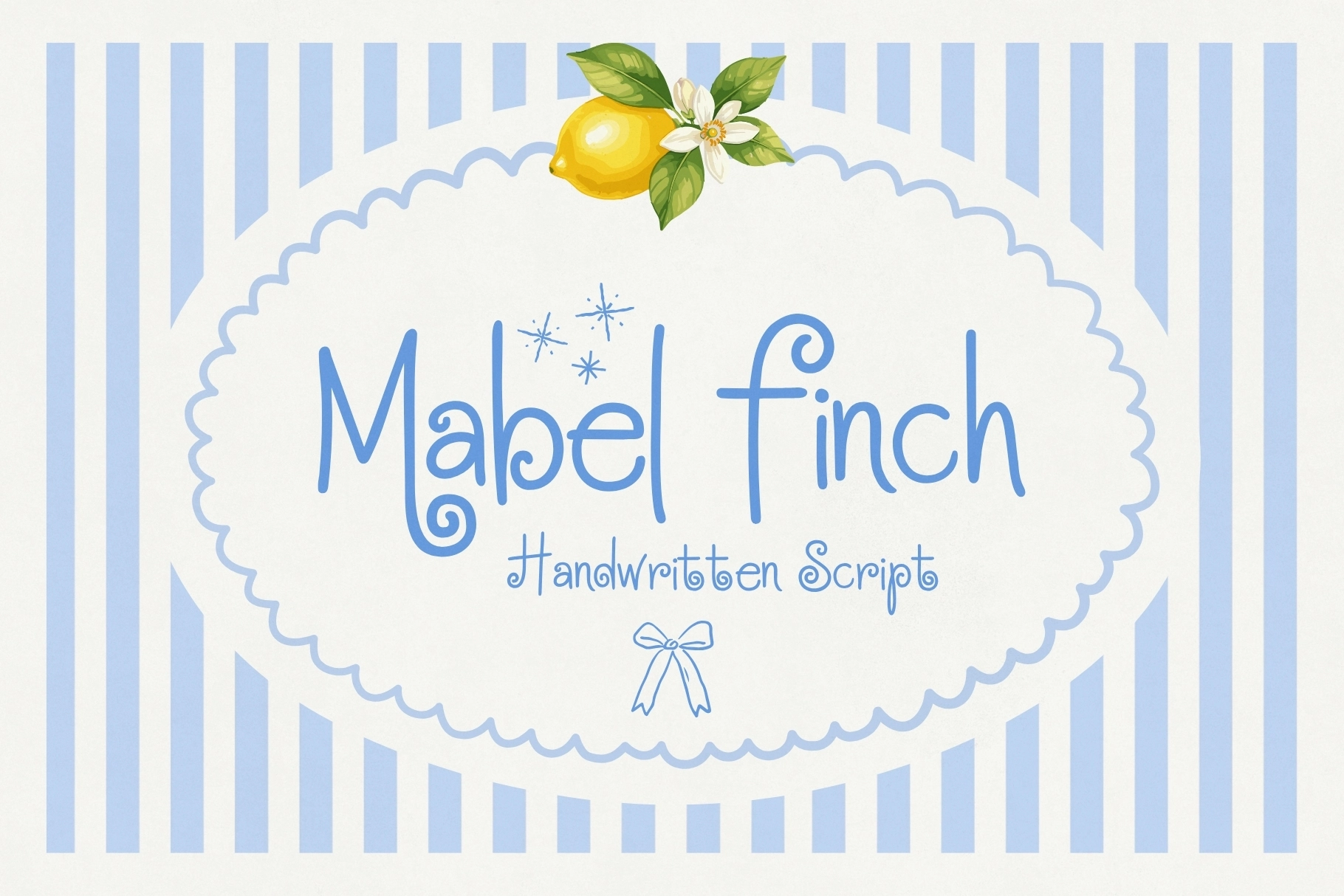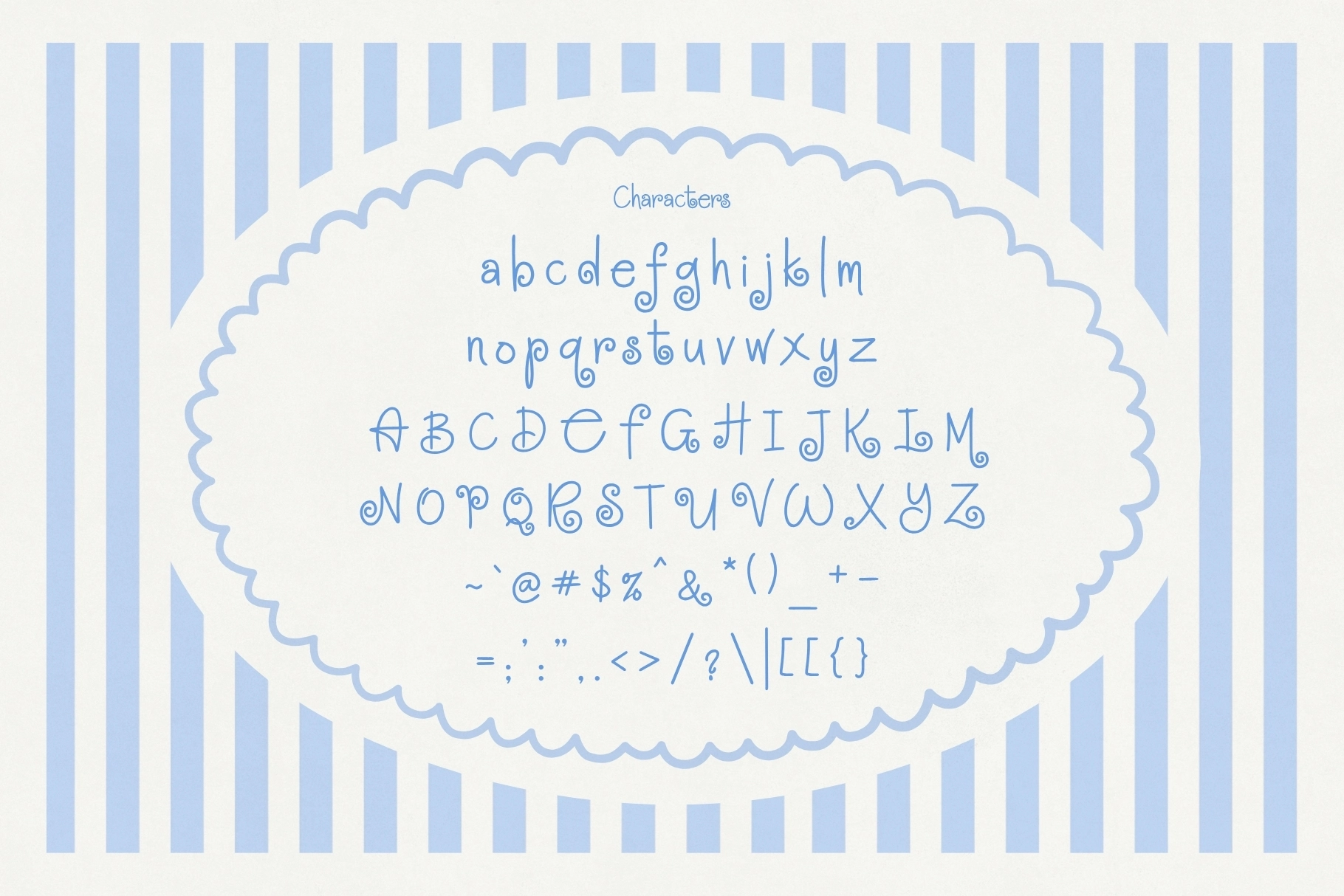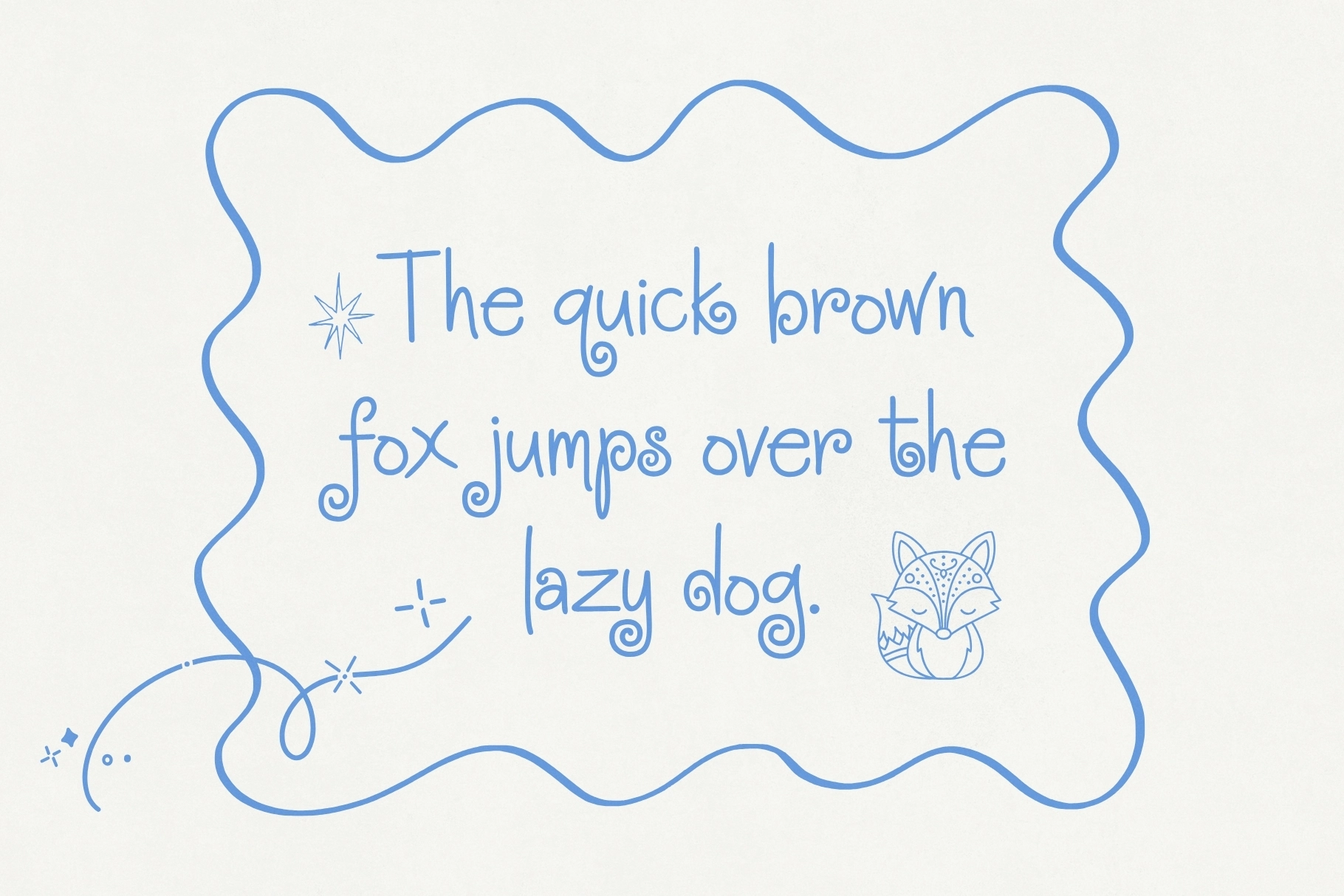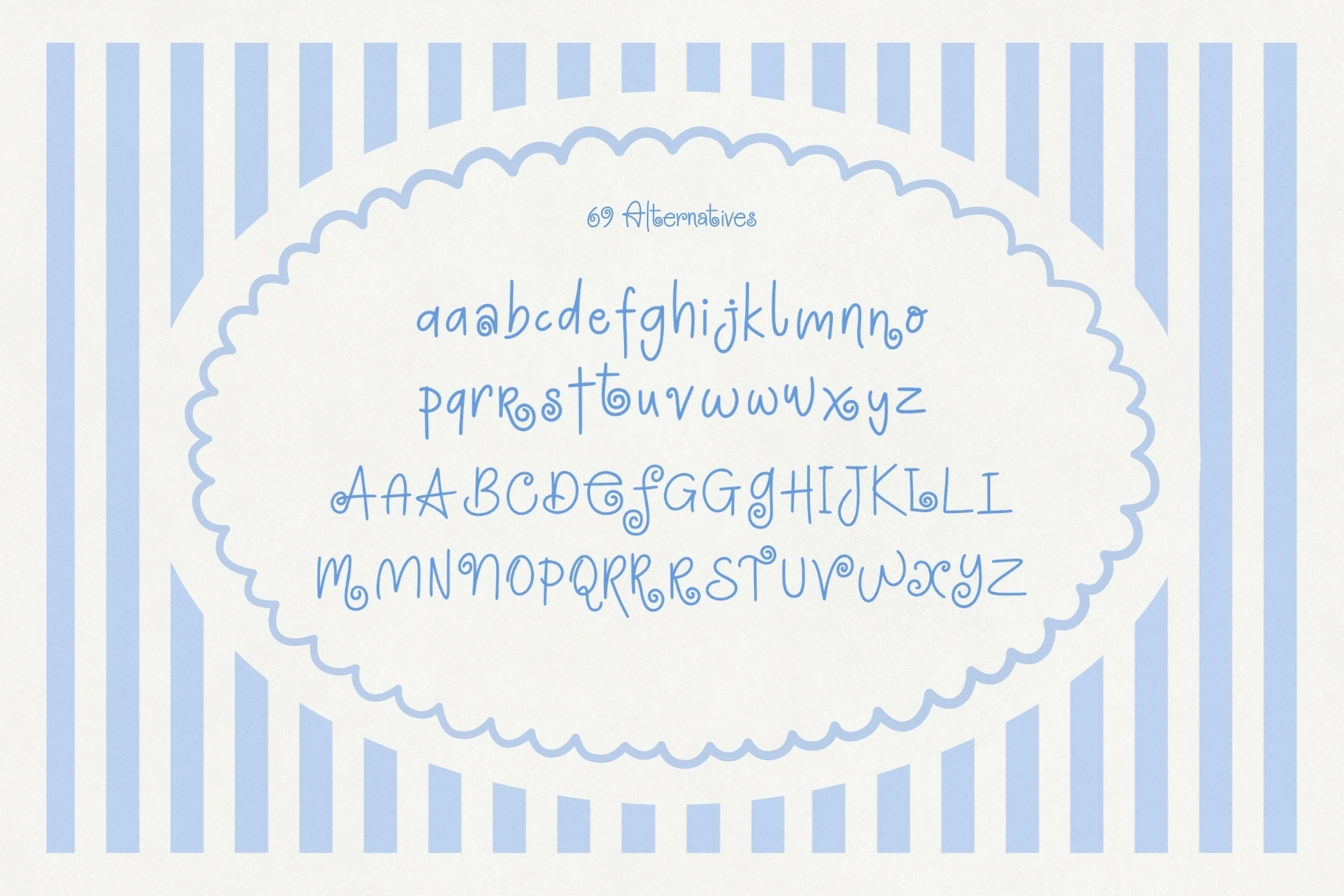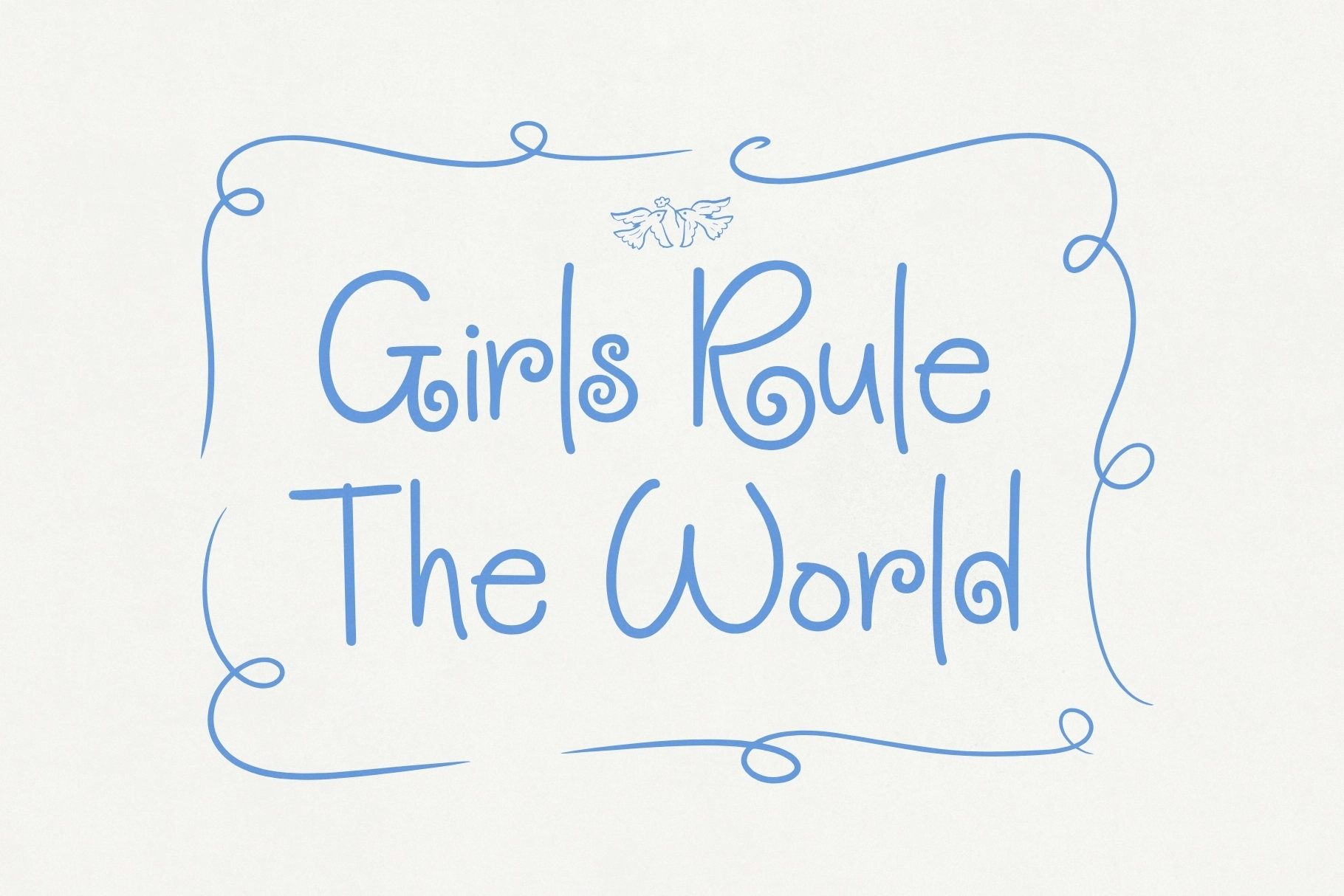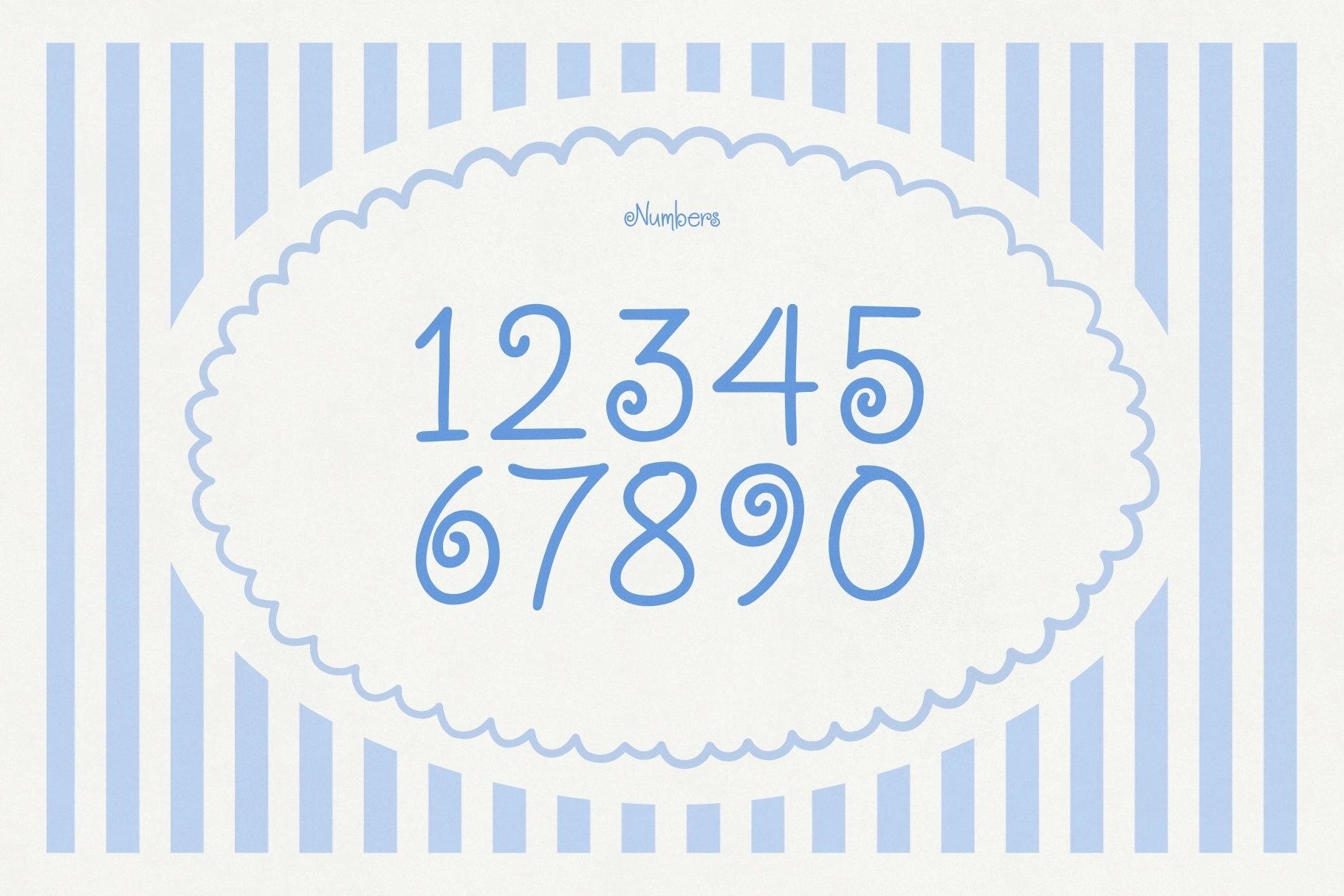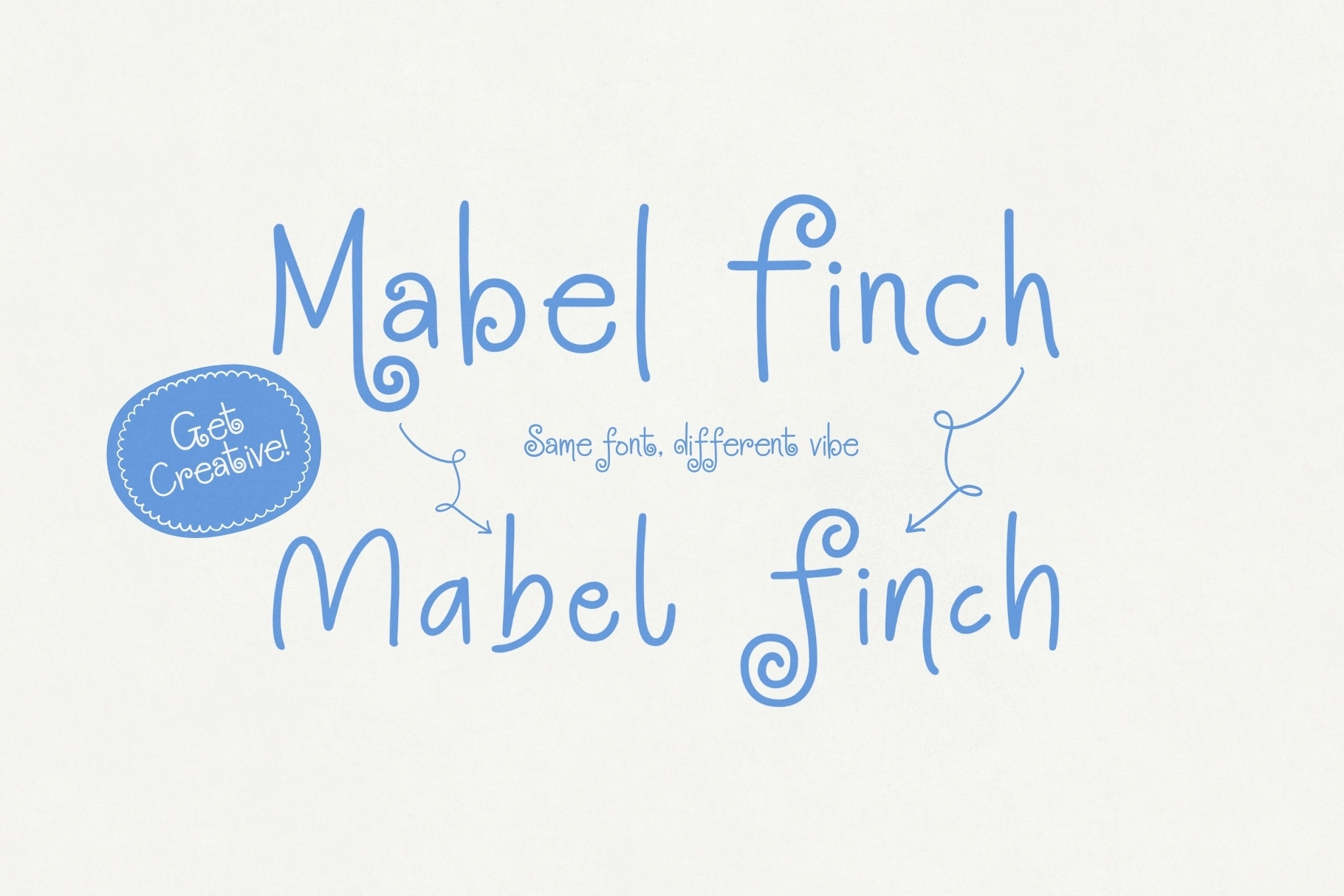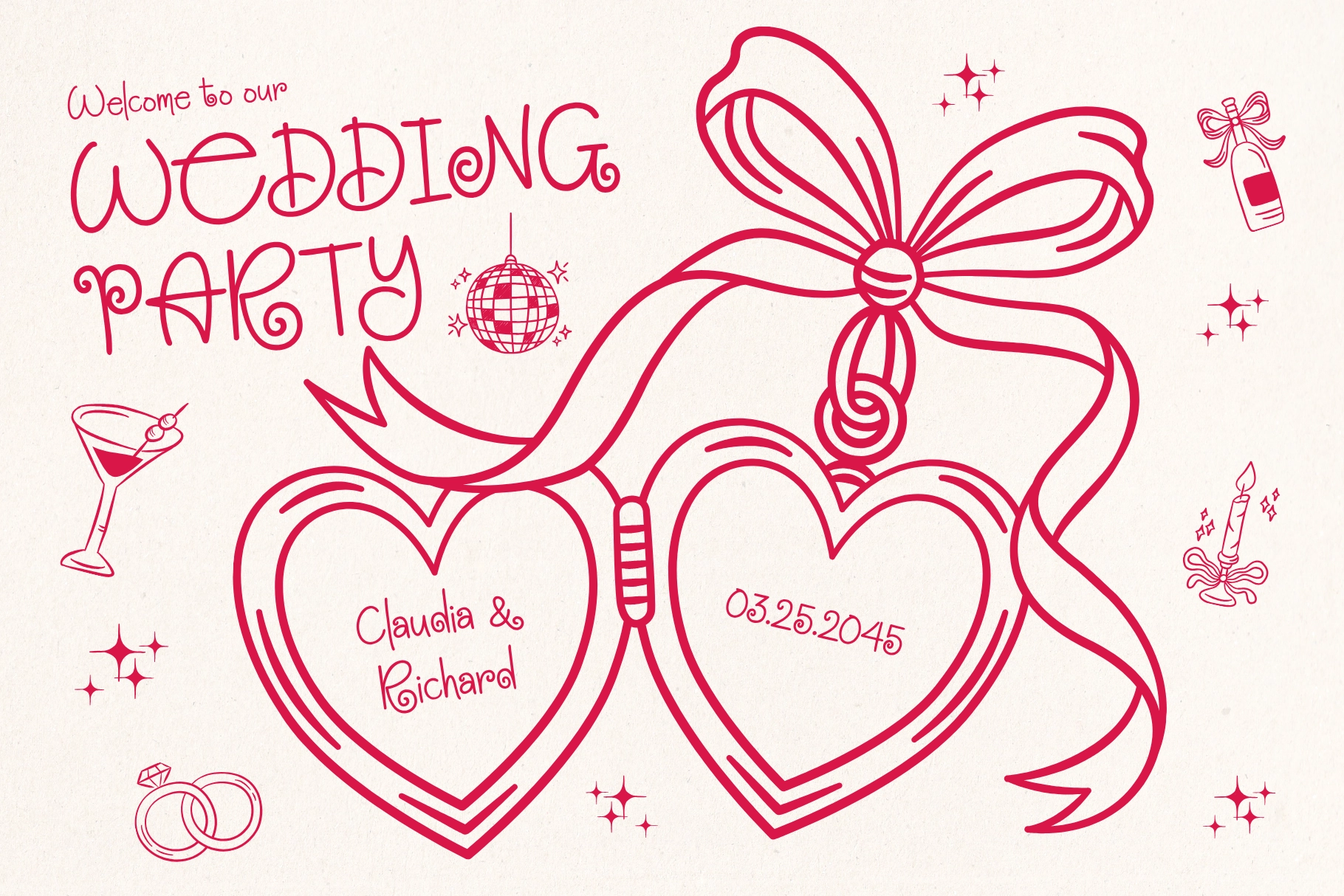
Mabel Finch - Playful Hand-Lettered Script Font
Mabel Finch
Mabel Finch leans into soft, bouncy curves and curled tails on letters like g, y, and k, giving the hand-lettered script a doodled, playful rhythm. The baseline dips and rises slightly from letter to letter, so lines of text keep a loose, sketched-by-hand feel instead of sitting on a rigid grid.
Extra letterforms tucked into the extended character set open up 69 alternates for the alphabet, so repeated letters inside a word or logo can vary in shape. Use it for boutique logos, candle labels, bakery branding, wedding invitations, greeting cards, product tags, packaging, stationery, children's designs, and social media graphics.
- Uppercase & lowercase;
- Numerals, punctuation & symbols;
- 69 alternate letterforms through the extended character set;
- Kerning support;